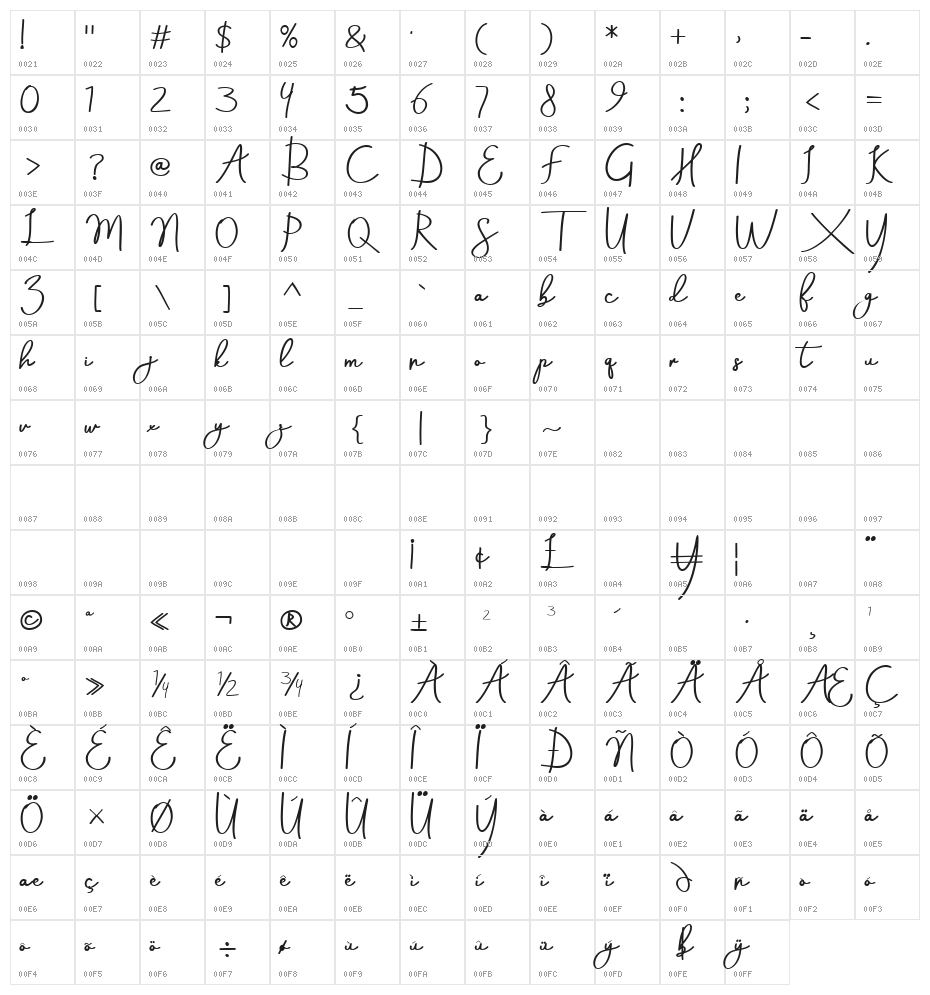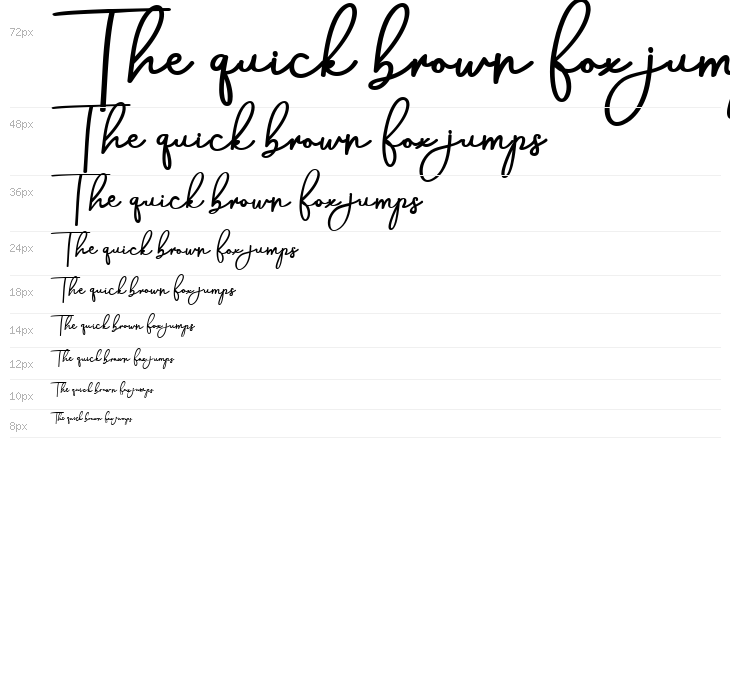
AneishaScriptBold Font
AneishaScriptBold Description
This font exhibits a lively and flowing script style, characterized by its bold and expressive strokes. The uppercase letters are elegantly crafted with a slight slant, giving them a dynamic appearance. The lowercase letters are smoothly connected, enhancing the cursive feel. Numbers and special characters maintain the same fluidity, ensuring consistency across all glyphs. The overall design is both playful and sophisticated, making it suitable for creative and artistic projects. Its bold nature adds emphasis, while the script style provides a personal touch.
| Use Case | Logos, Invitations, Artistic projects |
| Proposed Projects | Ideal for wedding invitations, greeting cards, logos, and branding materials that require a personal and artistic touch. |